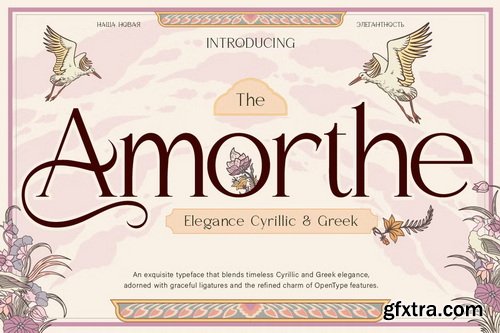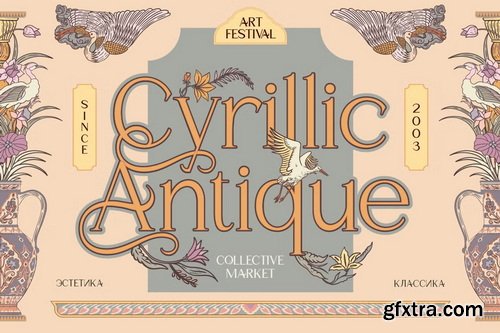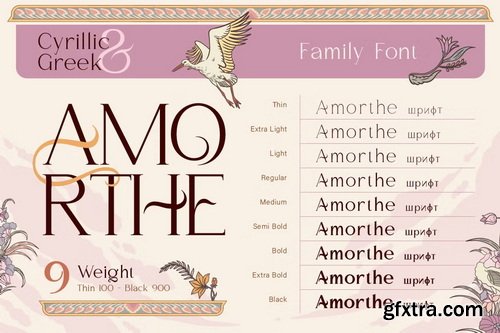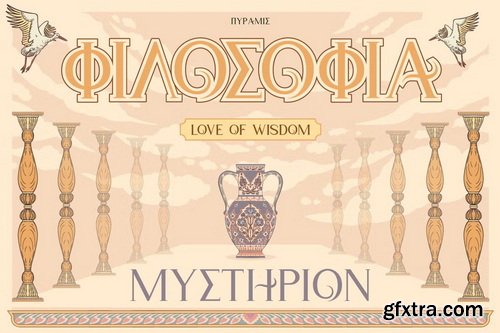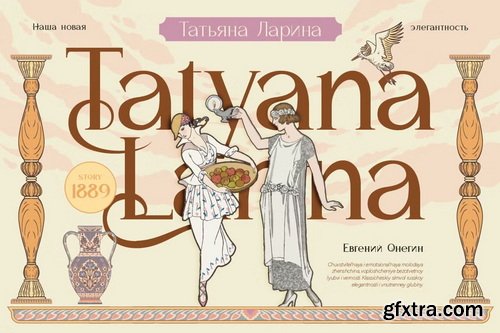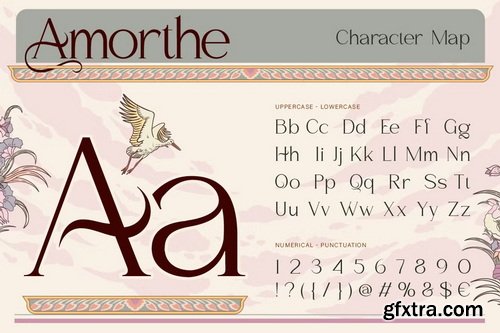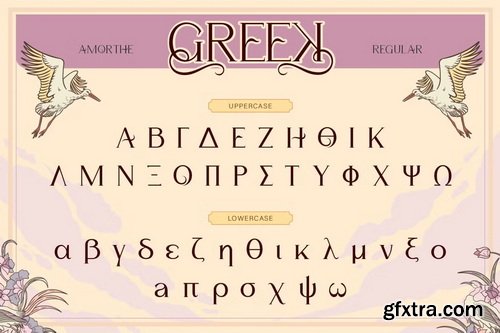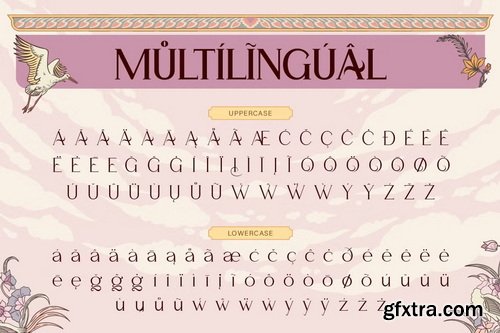
- Introducing Amorthe, where timeless elegance dances with modern versatility. A multilingual powerhouse (Cyrillic, Greek, and beyond), adorned with playful alternates that whisper secrets to the serifs.